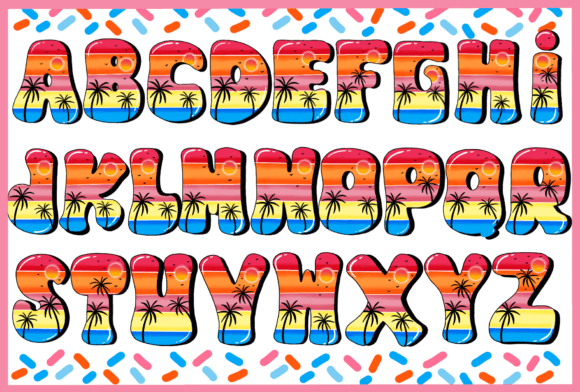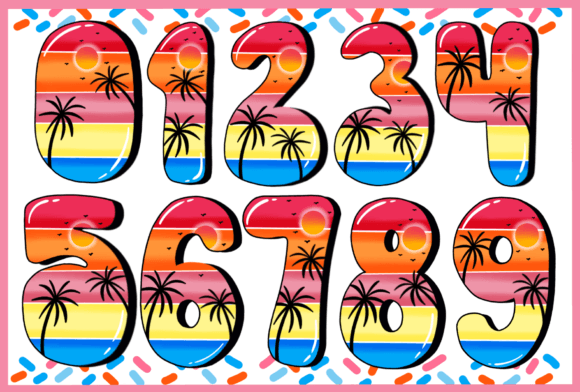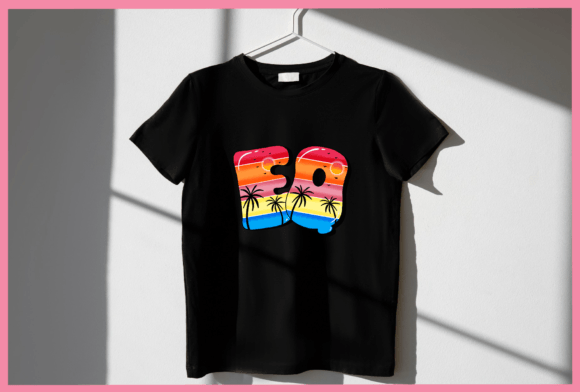
Hi Summer Font
About the Hi Summer Font
We are excited to introduce Hi Summer Font, a must-have typeface for any serious designer. Hi Summer is a fun and playful font that’s perfect for adding a touch of summer vibes to your designs. With its decorative style and cute palm tree motifs, it brings a sunny and tropical feel to any project. Whether you’re creating invitations, posters, or greeting cards, Hi Summer will infuse your design with the warmth and joy of the summer season.
Hi Summer’s playful energy makes it ideal for projects needing a lighthearted touch, such as invitations, posters, or social media graphics. Its decorative nature works best in headlines, short phrases, and branding elements where the palm tree motifs can be showcased effectively. Avoid using it for body text or UI elements; its decorative style hinders readability in extended passages.
Consider pairing Hi Summer with a clean sans-serif like Open Sans for a balanced contrast, or a more geometric sans-serif like Montserrat for a modern feel. For a softer aesthetic, a script font with gentle curves would complement its playful energy.
The font’s overall personality is undeniably cheerful and summery, projecting a friendly, approachable brand image suitable for businesses associated with travel, leisure, or tropical themes.
Hi Summer Font Usage Examples
Hi Summer Font Example